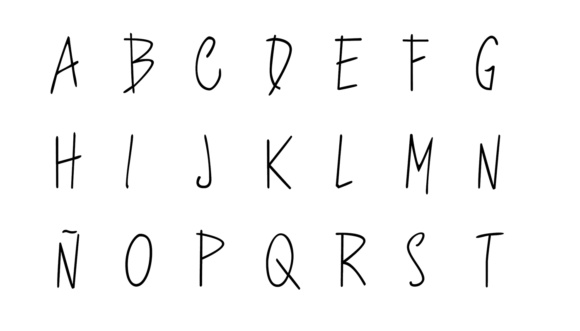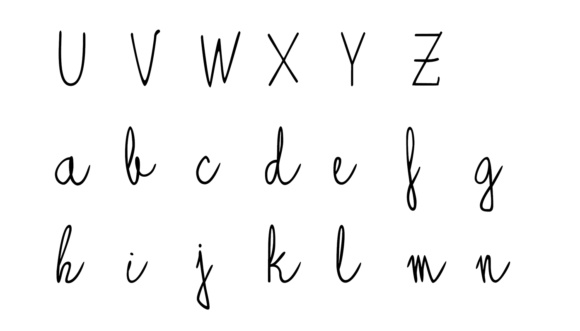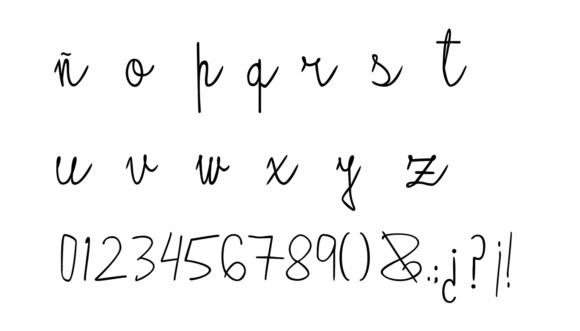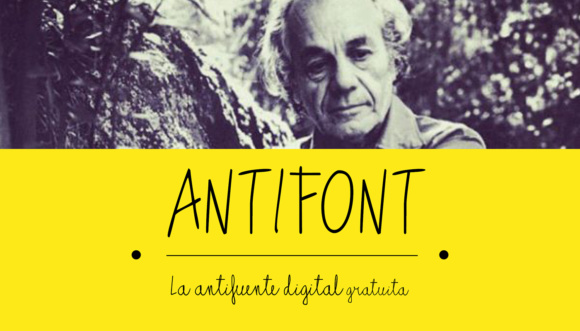
Antifont is based on the calligraphy of a famous Chilean poet, Nicanor Parra. With it’s fine and striking letters, Antifont can be used for almost every design. The possibilities are endless!